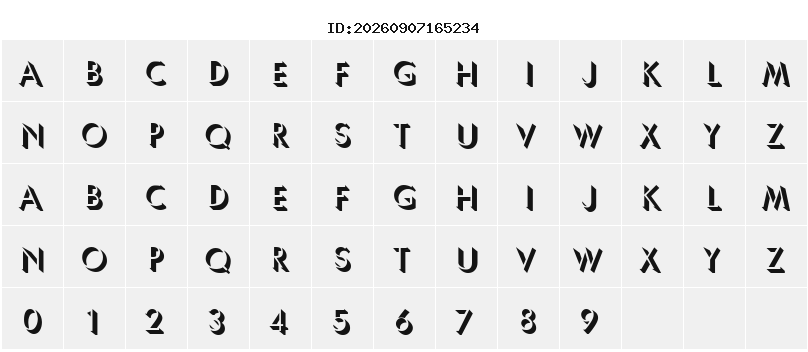
Umbles Preview
• Font Name: Umbles
• Full Font Name: Umbles
About Umbles.ttf
Umbles.ttf is a modern, elegant sans-serif font designed for ultimate readability and visual harmony. Perfect for branding, headlines, web design, and print materials.